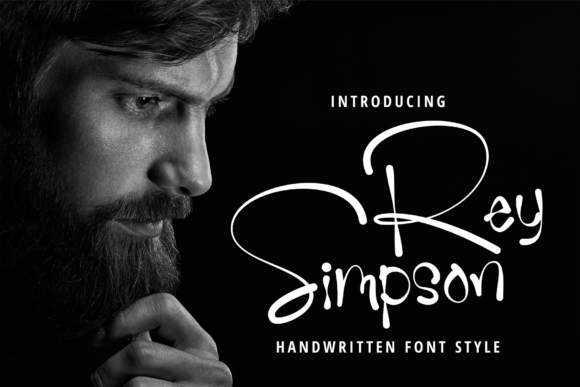
Get ready to revolutionize your branding game with Rey Simpson Font, a breathtaking script font that exudes a rare blend of simplicity and charisma. Step into a world where creativity flows like ink, where your designs become captivating masterpieces.
Picture this: Your fashion brand basking in elegance, your editorial designs bursting with artistic flair, all thanks to the magic of Rey Simpson Font. Its smooth, relaxed curves evoke a sense of tranquility that invites readers into a world of captivating stories and iconic visuals.
Whether you're a seasoned designer or an aspiring artist, Rey Simpson Font is your ultimate creative companion. Seamlessly glide through your projects, as this font harmonizes effortlessly with your vision. Witness the remarkable transformation as your designs blossom into works of art, leaving an indelible mark on your audience.
With Rey Simpson Font, your tattoos become captivating narratives etched in ink. Its captivating ligatures weave tales of love, passion, and adventure onto your skin, turning your body into a living canvas. Each stroke of the pen becomes an expression of your soul, a testament to your unique journey through life.
Step into a world where fonts become more than just letters; they become emotions, stories, and expressions of the soul. Let Rey Simpson Font ignite your creativity, leaving your audience spellbound with every design you unveil. Embrace the power of typography and watch as your projects transcend the ordinary and enter the realm of extraordinary.